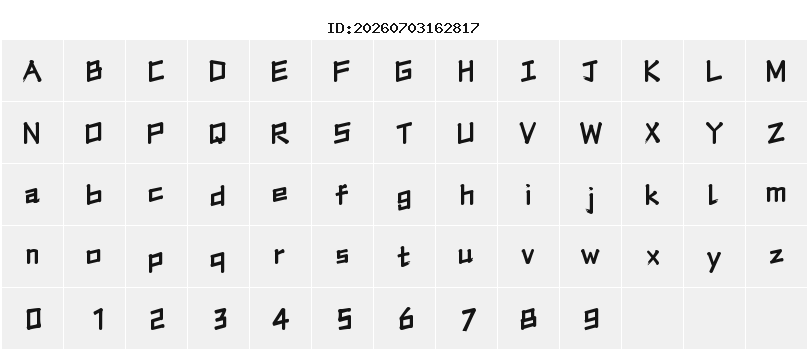
449-上首烟火体 Preview
• Font Name: 449-上首烟火体
• Font ID: 449-上首烟火体:Version 4.000
• Full Font Name: 449-上首烟火体
• Version: Version 4.00;March 30, 2026;FontCreator 13.0.0.2613 64-bit
• PostScript Name: 449-SSYanHuoTi
• Character Count: 7601
• Manufacturer: 上首造字
About 449-上首烟火体.ttf
449-上首烟火体.ttf is a modern, elegant sans-serif font designed for ultimate readability and visual harmony. Perfect for branding, headlines, web design, and print materials.